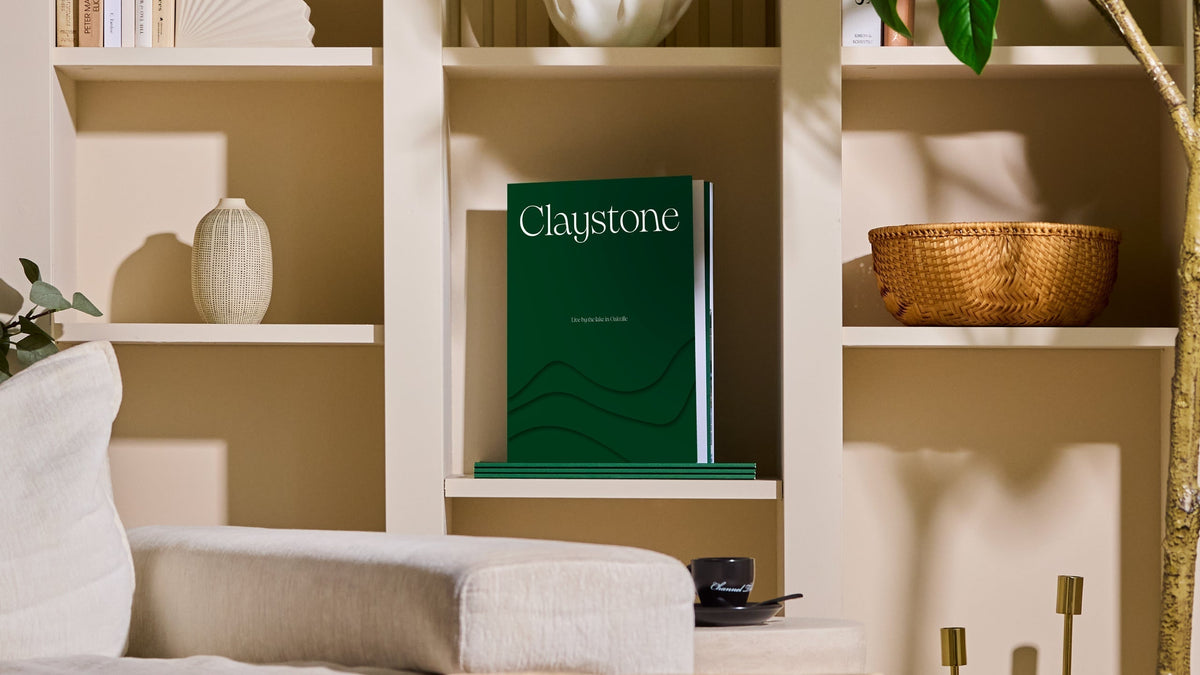
Claystone is a boutique mid-rise condominium in Oakville’s Bronte Village, created in collaboration with Graywood Developments.
Its name draws from the layered shoreline and stonehooking heritage of Bronte Harbour, evoking calm, strength, and belonging. Inspired by the building’s sculptural wave form and deep connection to the water, we crafted a brand identity and campaign that positioned Claystone as an elegant, end-user–oriented residence in a vibrant lakeside community, giving Graywood a clear, compelling story to share.
Claystone was named from Bronte’s stonehooking past and the building’s layered, wave-like form. From the outset, we aimed to create a calm, timeless identity rooted in the water. The logotype, set in PP Pangaia, keeps things fresh and refined, while a soft, shale-inspired graphic flows through the materials, echoing the shoreline and the architecture. The result is a boutique brand that speaks to those seeking a refined lakeside lifestyle in South Oakville.